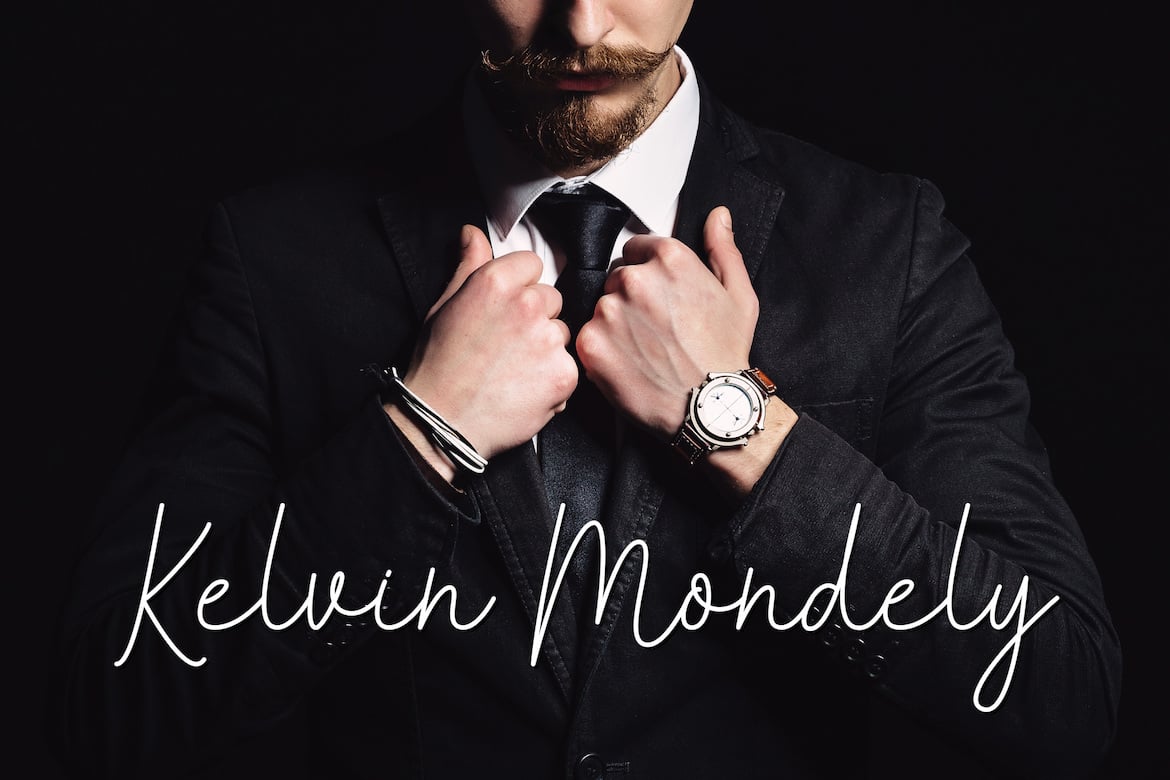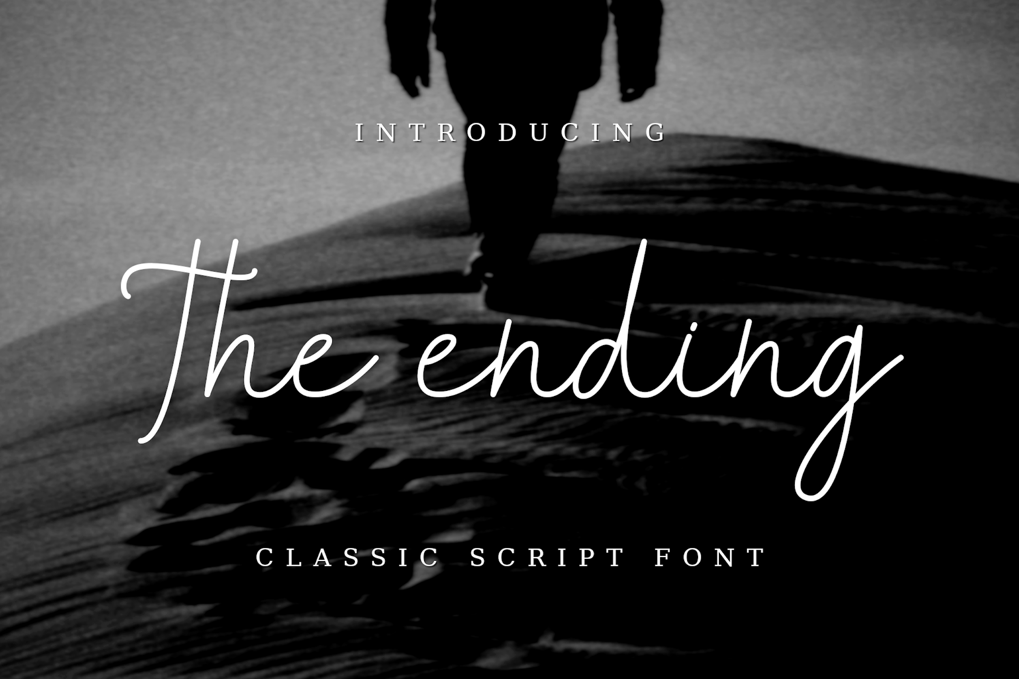
The Ending – Handwriting Script Font
The Ending is a timeless script font that combines a simple shape with an elegant appearance. Perfect for a variety of projects, including posters, logos, t-shirt designs, ID cards, and crafting, The Ending adds a touch of sophistication and classic charm to any design. Elevate your creations with the refined and graceful style of The Ending.